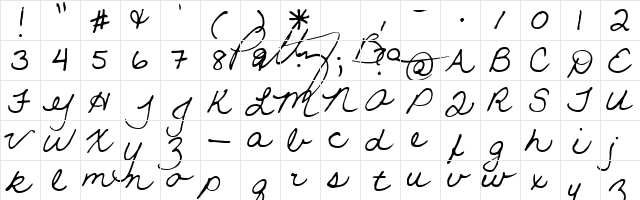
Leaf Queen Script scripty 2
Design Context for Leaf Queen Script Typeface
Leaf Queen Script brings a calligraphic fluidity to the page — its connecting strokes and expressive curves give it an unmistakably human quality.
Font Pairing: Combine Leaf Queen Script with a simple geometric sans for maximum contrast — the tension between flowing curves and clean structure is a classic typographic pairing.
Pro Tip: Use Leaf Queen Script for short runs of text — names, titles, or taglines. Extended body copy in script faces tires the eye quickly.